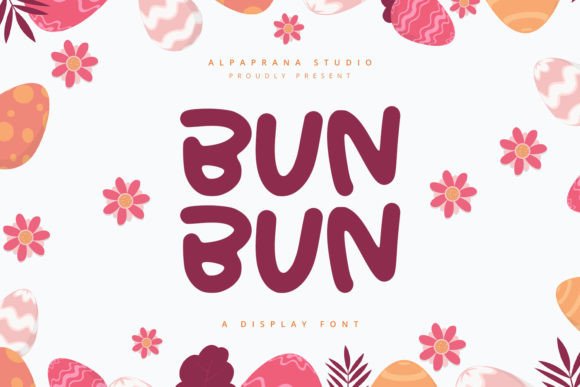
Introducing Bunbun Font, a display font family designed to bring a touch of whimsy and fun to your creative projects. With its charming and playful style, Bunbun Font is the perfect choice for adding a personal touch to your designs.
Whether you're a seasoned designer or just starting, Bunbun Font is incredibly versatile and easy to use. With its wide range of applications, from branding and logo design to lettering and logotypes, Bunbun Font is the perfect font for adding a unique touch to any project.
Step into a world of creativity as you explore the endless possibilities of Bunbun Font. Unleash your imagination and create stunning designs that are sure to captivate and delight. From eye-catching posters and magazines to stylish packaging and shopping bags, Bunbun Font will add a touch of magic to all your creations.
Express yourself with Bunbun Font and let your designs shine. Its playful and charming style will bring a smile to the faces of your audience, making your designs memorable and impactful.
But Bunbun Font isn't just about aesthetics; it's also incredibly functional. Its clean lines and easy-to-read characters make it perfect for a variety of design projects, including book covers, photography, and special events.
So why settle for ordinary fonts when you can have Bunbun Font? With its endless versatility, charming style, and captivating presence, Bunbun Font is the ultimate choice for designers who want to make a statement.